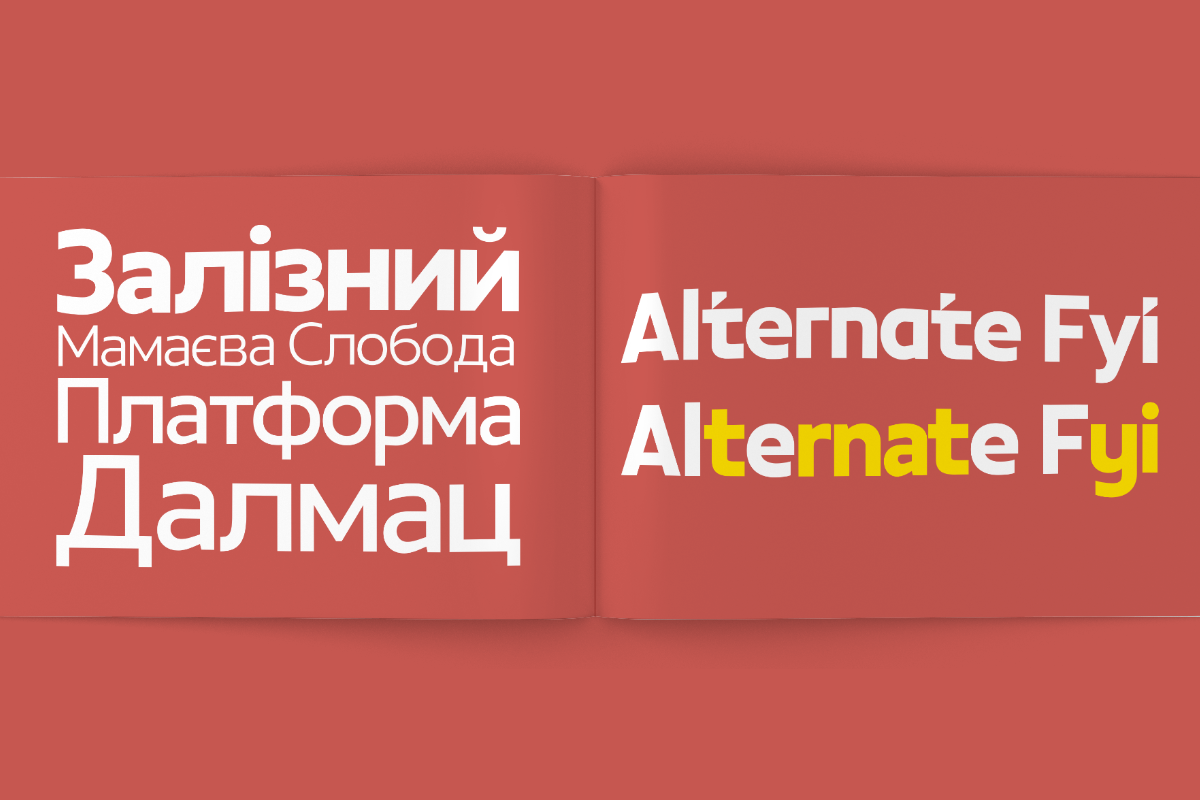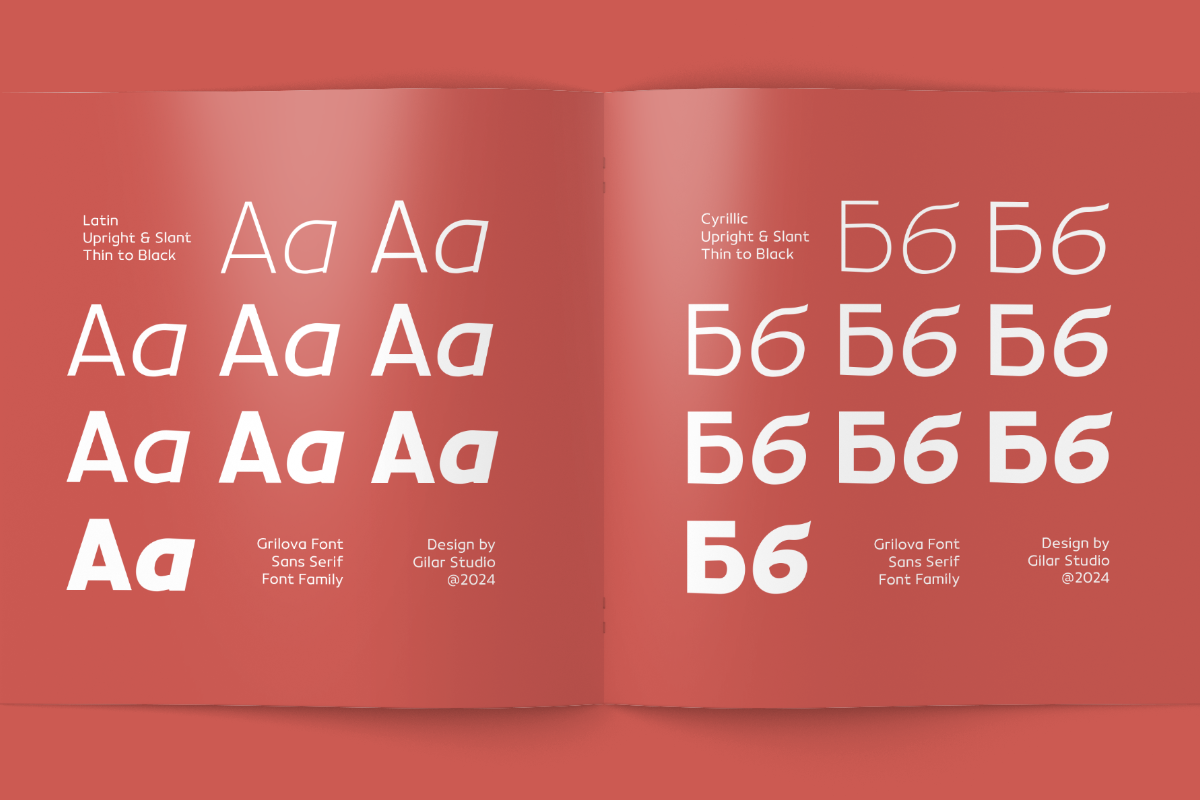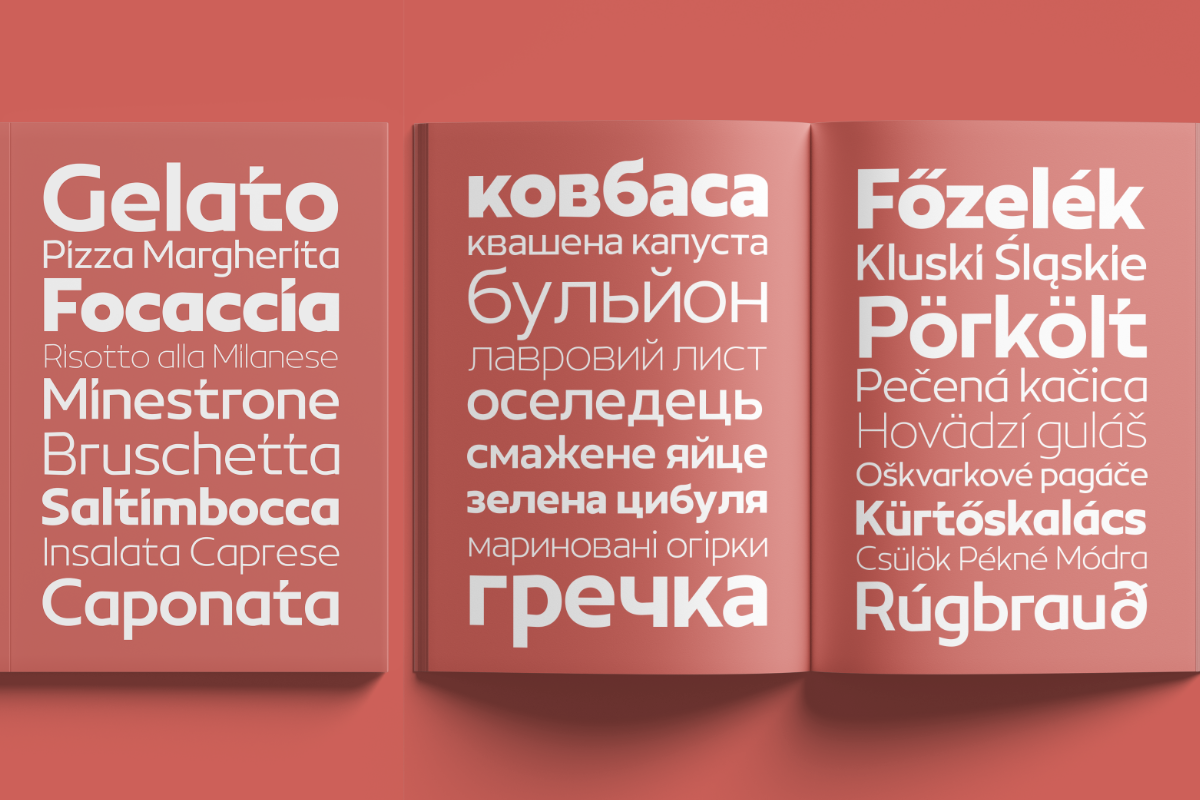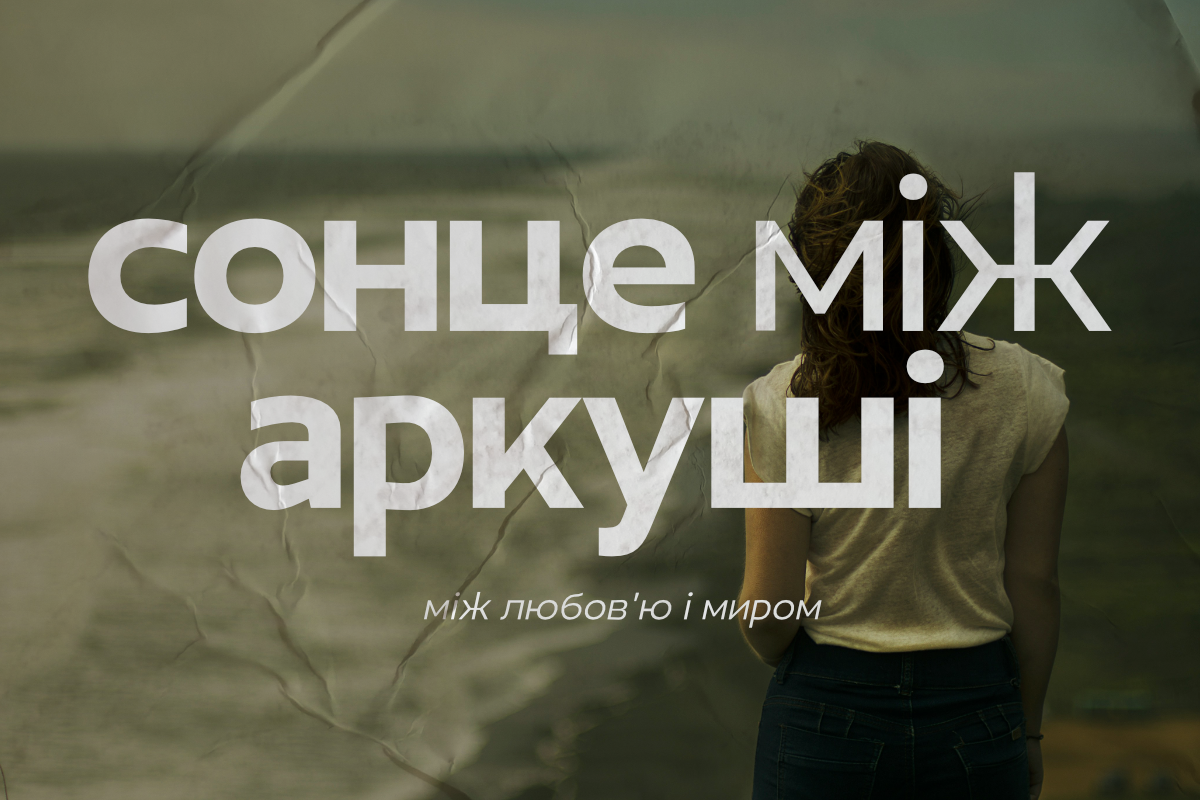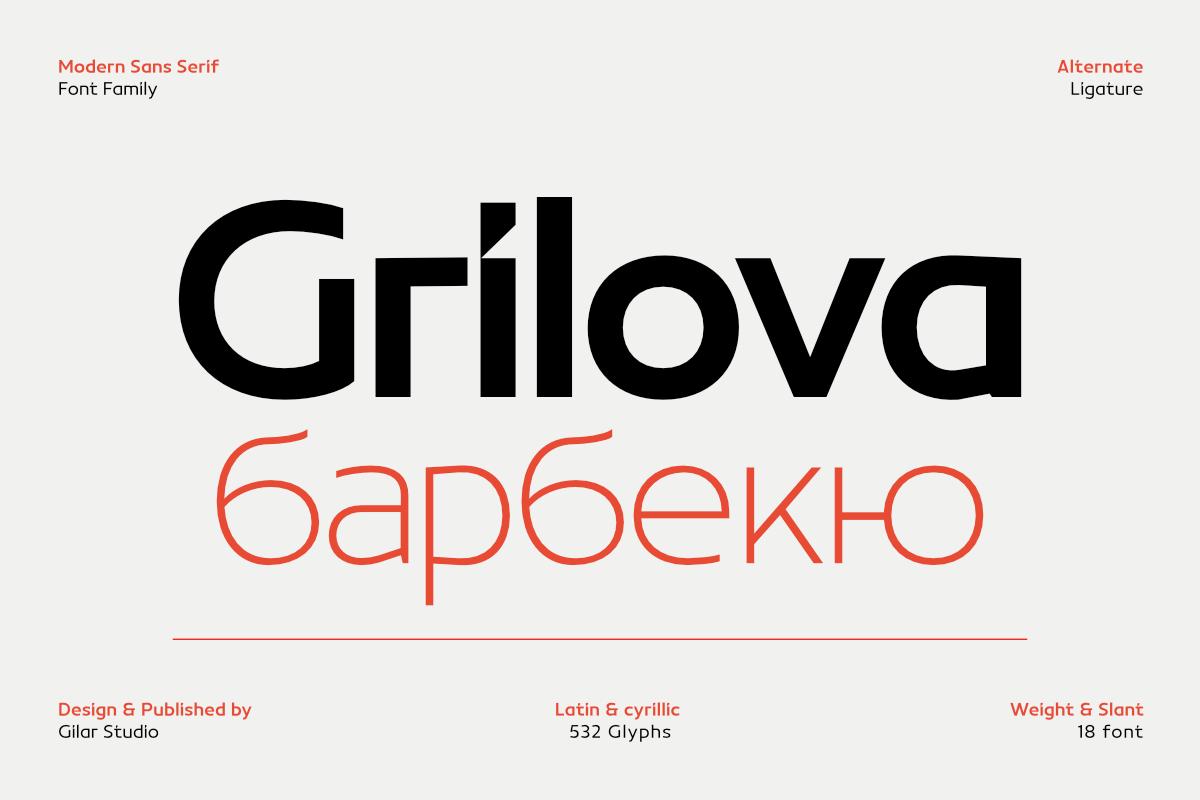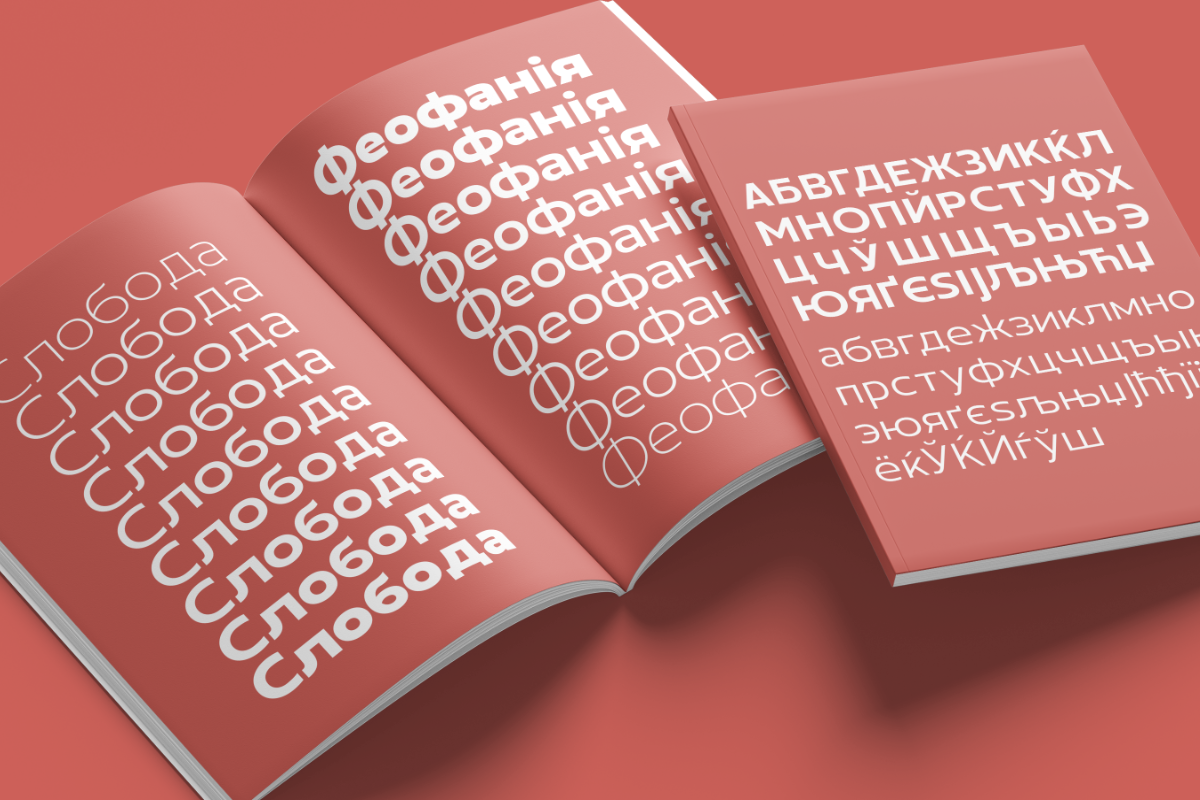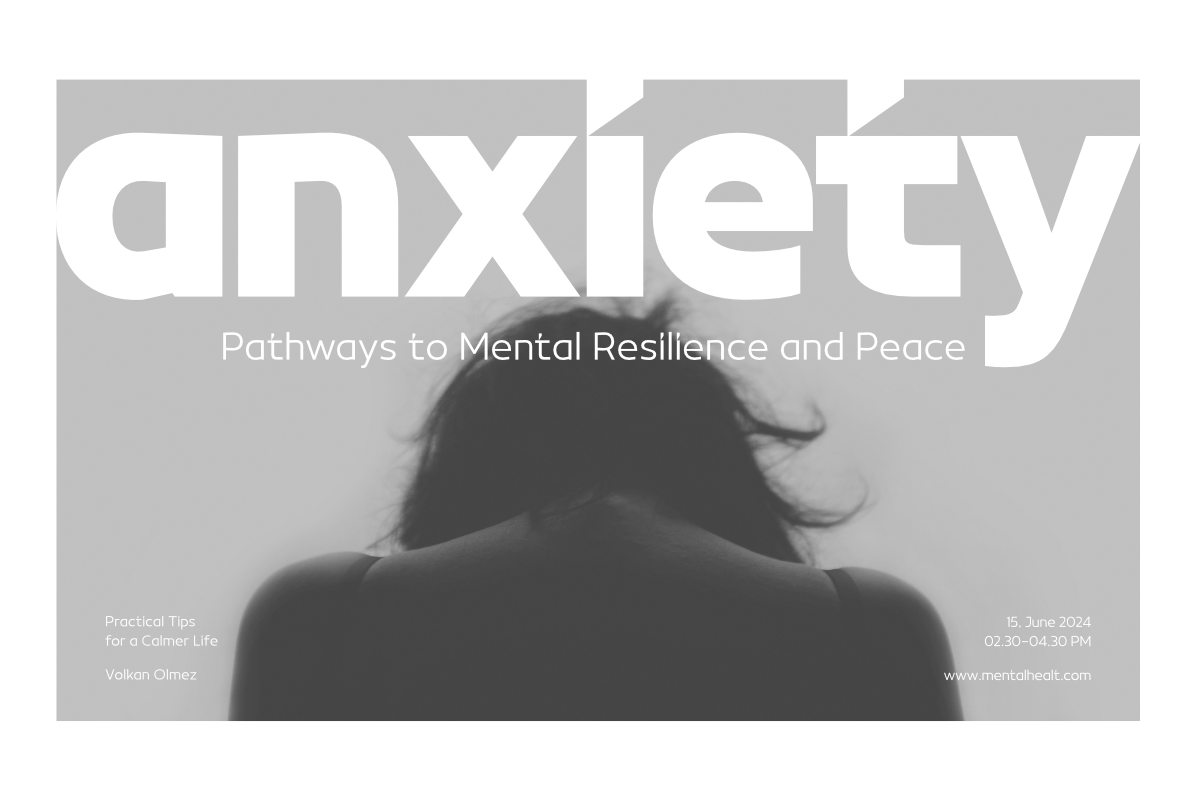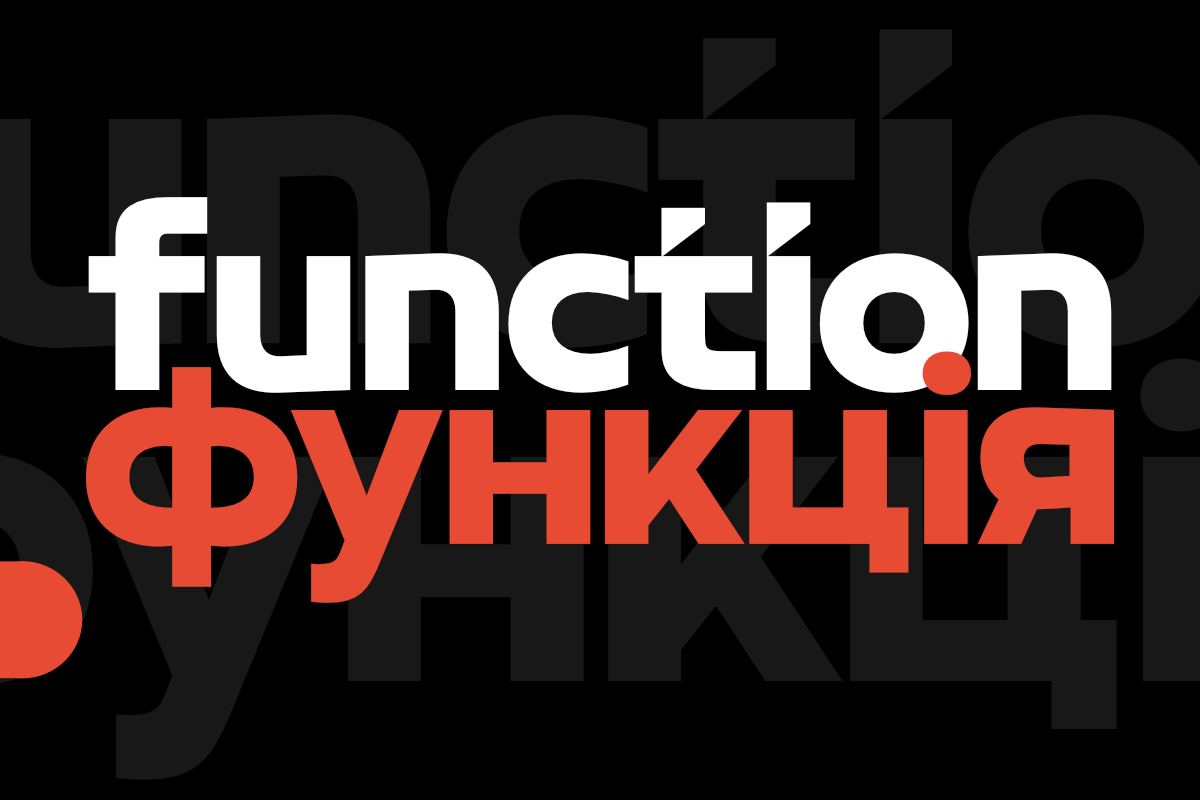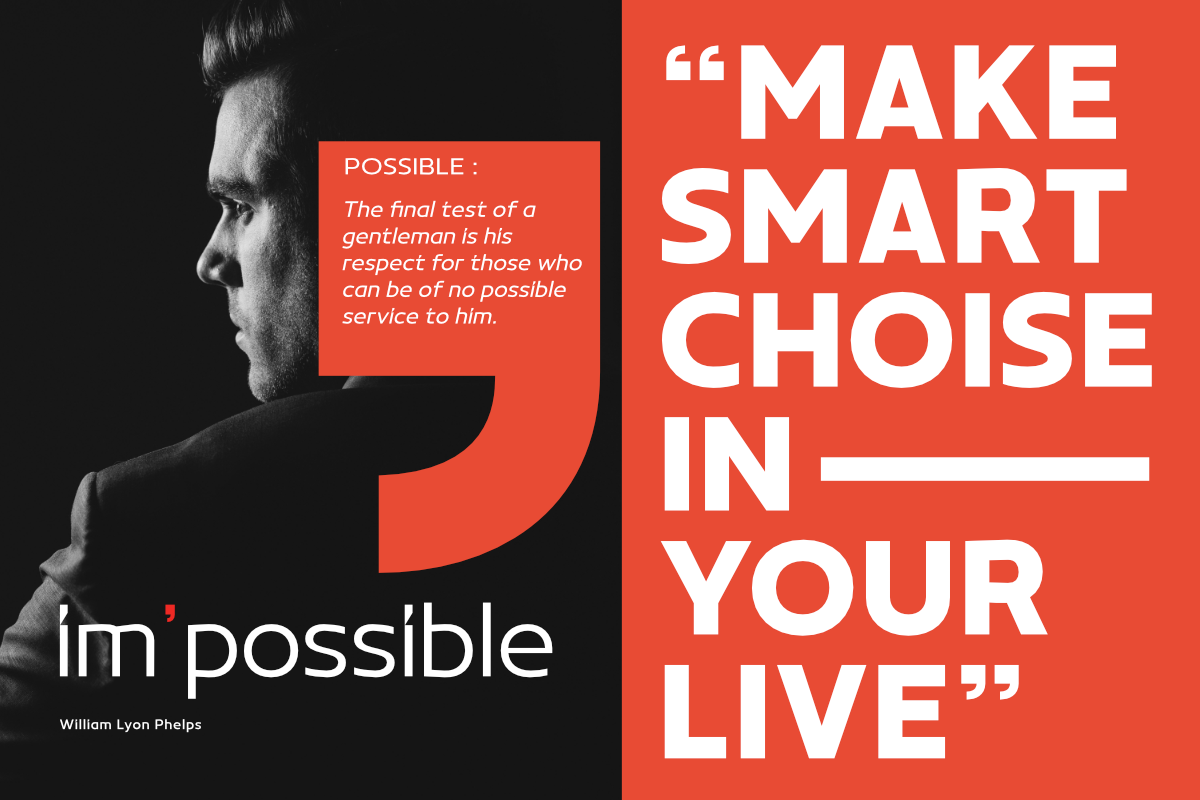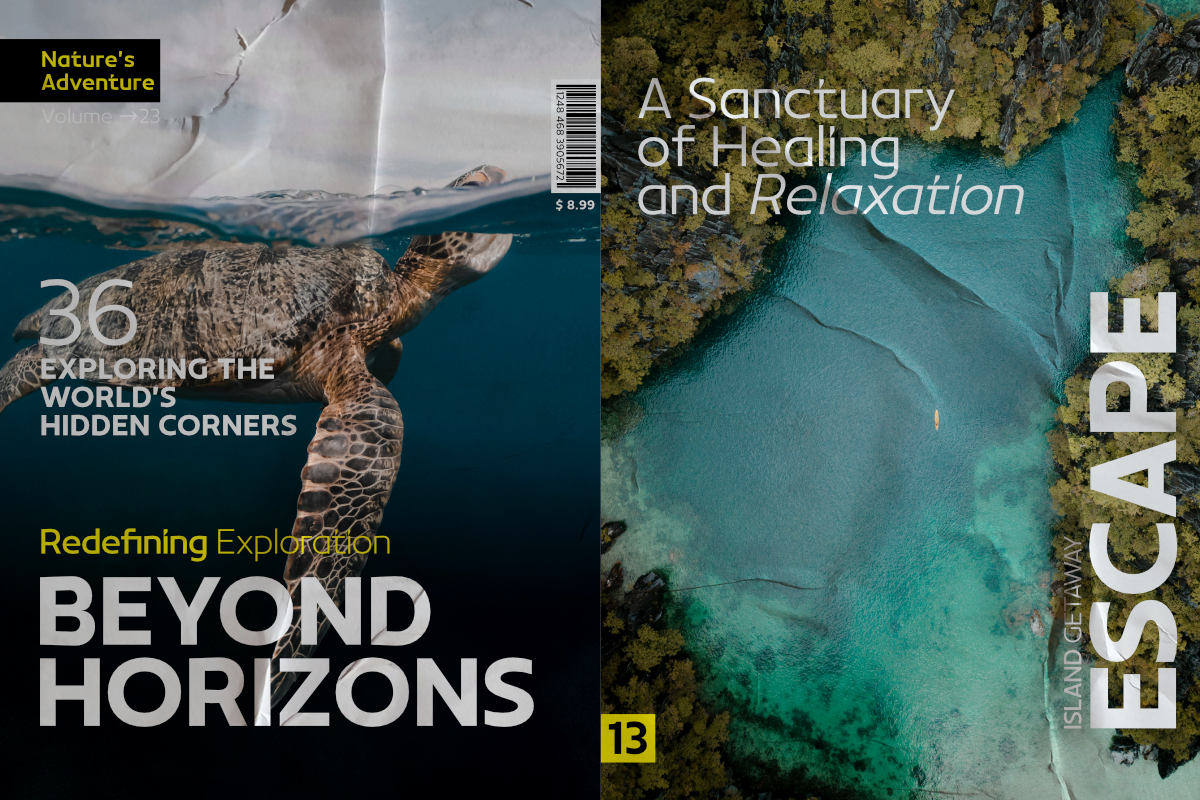
Grilova - Sans Serif Font Family
Grilova is an exceptional sans serif typeface, featuring a comprehensive range of 18 styles from Thin to Light and Slant. This typeface is designed with a variety of advanced typographic features, including alternates, ligatures, numerators, and denominators. With support for over 96 languages, Grilova ensures broad compatibility and usability. This Font Available with Latin and Cyrillic Script
This approach results in a typeface that exudes character, energy, and dynamism, blending industrial and humanist nuances seamlessly. The distinctive character of Grilova makes it an ideal choice for a wide range of design applications, such as magazines, branding, business materials, fashion, logos, websites, brand identities, product packaging, and even body and long text.
Grilova stands out for its versatility and stylistic appeal, making it a powerful tool for designers seeking a typeface that delivers both functionality and aesthetic excellence.